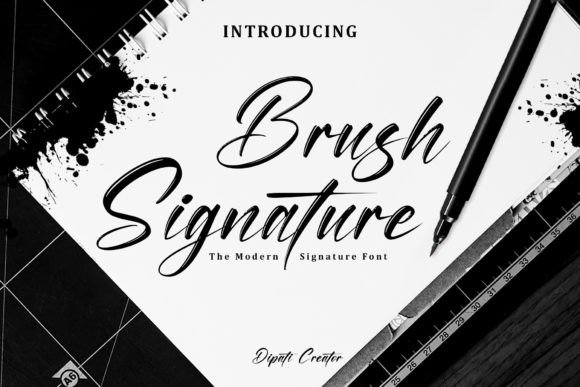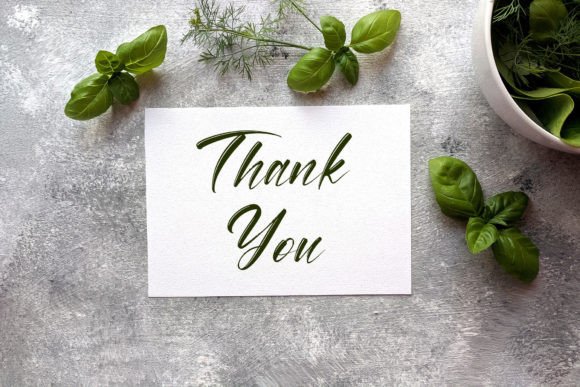
Brush Signature Font
Brush Signature is a classy signature font, that features a very delicate and classy look. So balanced and good look. This font is perfect for designing t-shirts, invitations, magazines, photography, poster and more. this font was designed to enhance the beauty of your projects.